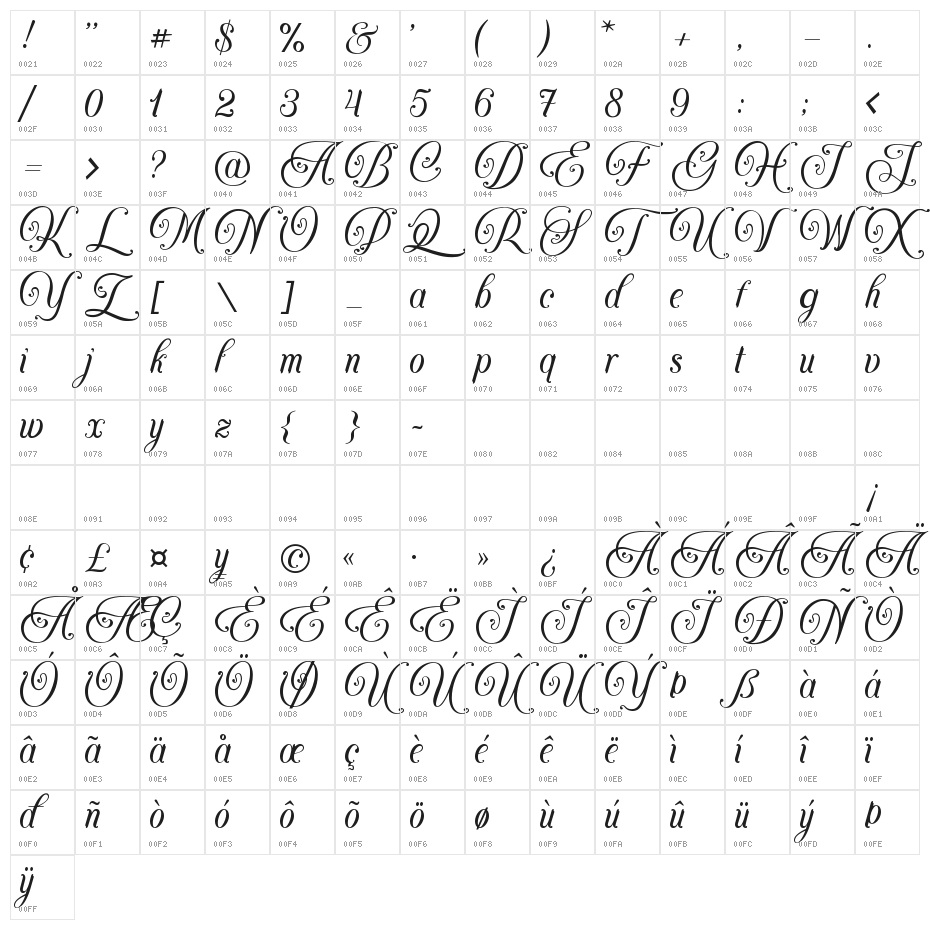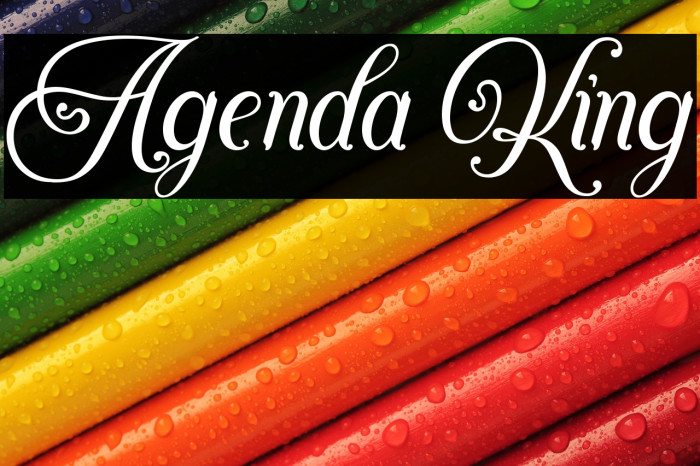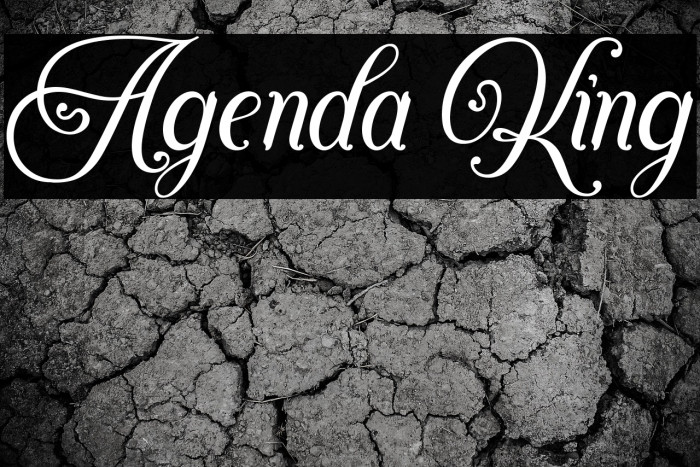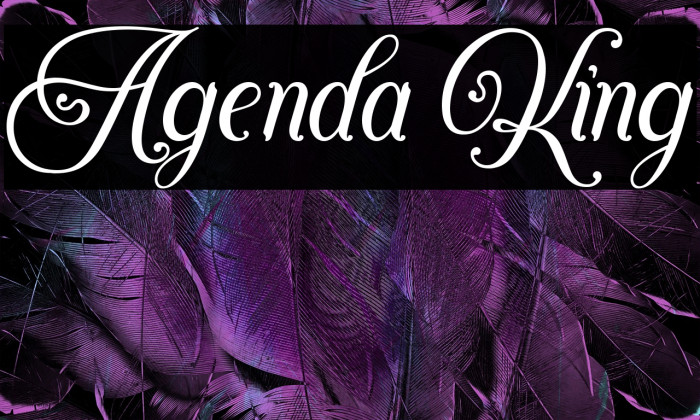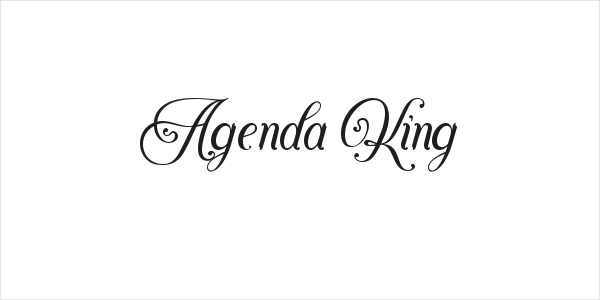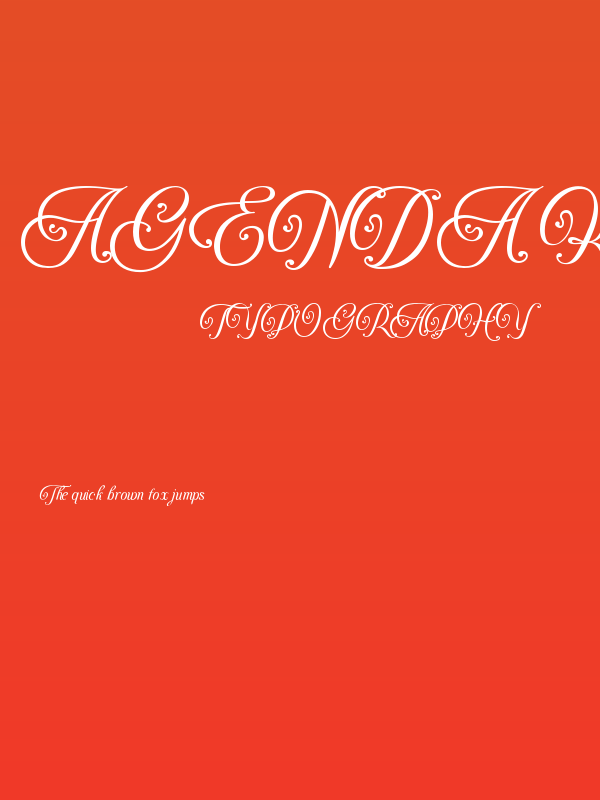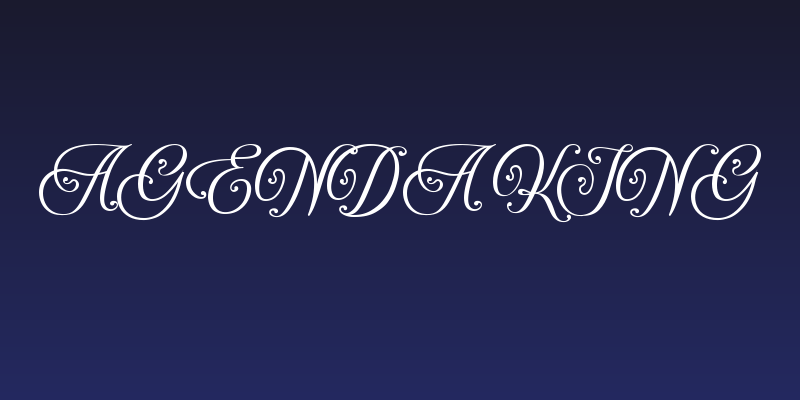
Agenda King Font
Agenda King Description
This font exudes elegance and sophistication with its intricate and flowing script style. The uppercase letters are adorned with elaborate swirls and flourishes, giving them a decorative and ornamental appearance. The lowercase letters maintain a more traditional script form, yet they still possess a graceful and fluid quality. The numerals are styled to match the overall aesthetic, featuring subtle curves and embellishments. Special characters are designed with the same attention to detail, ensuring a cohesive look across all glyphs. This font is ideal for projects that require a touch of luxury and refinement.
| Use Case | Logos, Invitations, Decorative headings |
| Proposed Projects | Wedding invitations, luxury branding, elegant packaging, high-end event programs. |